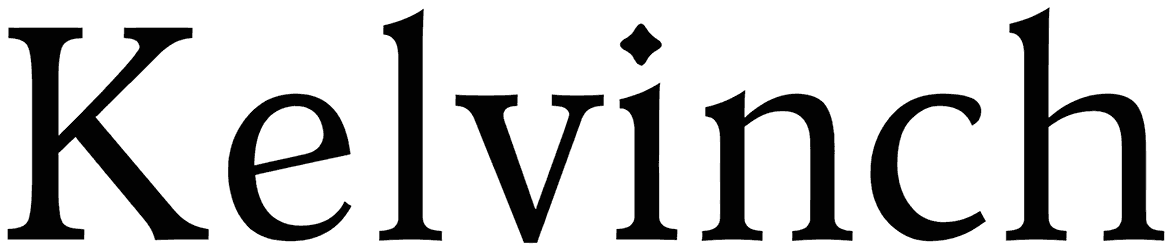
The Brande and Lotaline Font
The Brande And Lotaline Font
It is an undeniable fact that The Brande and Lotaline font is a formal serif font that comes with a sense of authenticity, trustworthiness, confidence, or majesty.
Since its characters have good readability, it can suit a wide set of graphic content like business cards, stationery, magazines, presentations, and e-books. Just in case you need another masterpiece, the same as this one, don’t hesitate to take a look at our rich archive.
Designed by: Arterfak Project